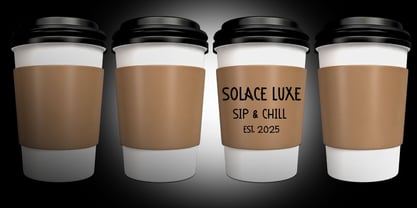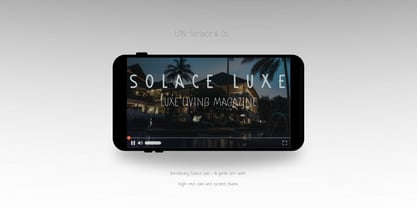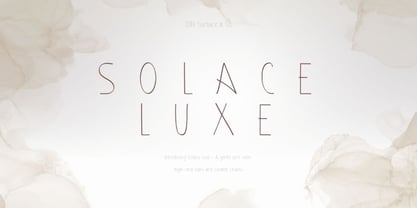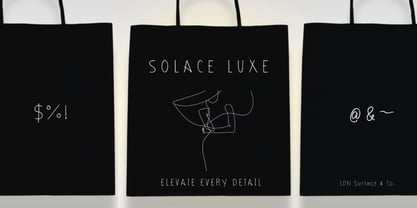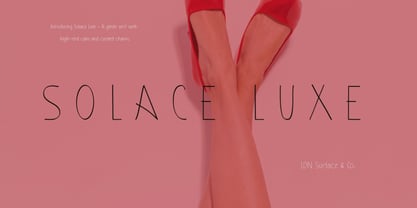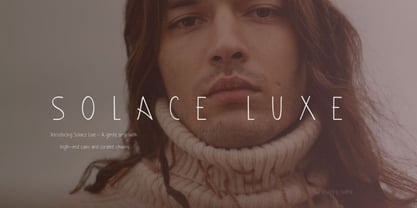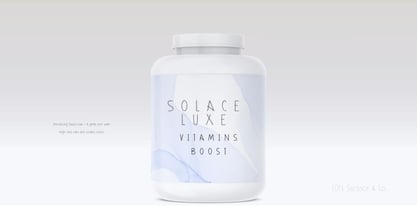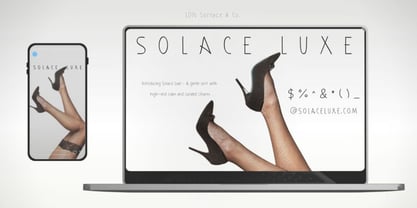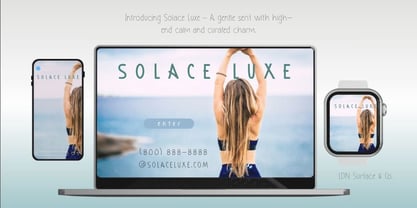
Solace Luxe
Solace Luxe Font – Where Prestige Meets Mastery.
Introducing the Solace Luxe Font, a luxury typeface designed to elevate your creative projects to new heights of elegance and sophistication. With refined, contemporary lines and a commanding presence, this font is crafted for those who demand brilliance and distinction.
Ideal for luxury branding, editorial typography, high-end retail packaging, architectural publications, and prestige marketing materials, the Solace Luxe Font offers a timeless aesthetic and modern flair. Its versatile style seamlessly integrates into high-fashion promotions, signature product designs, and elite digital branding. Unlock a world of premium creativity and leave an unforgettable impression with the Solace Luxe Font—crafted for those who value excellence.